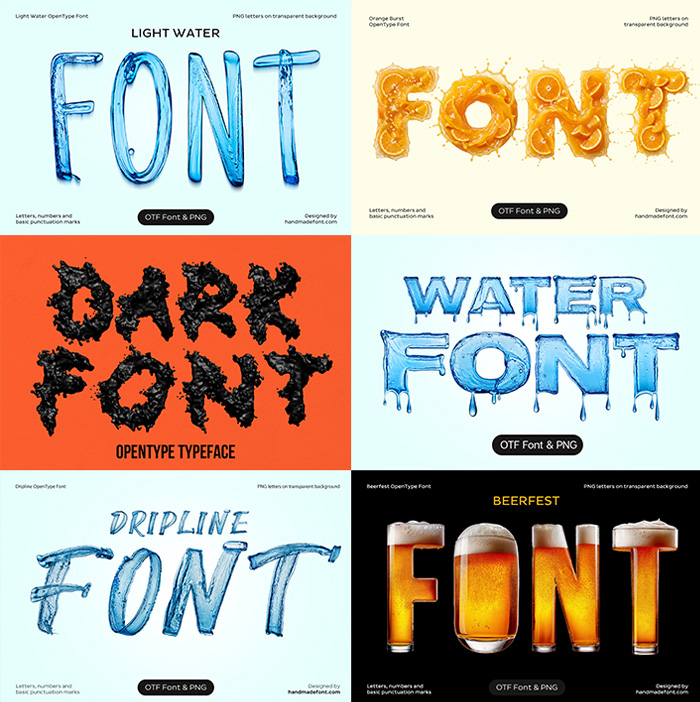
Water & Liquid Fonts – Splash, Drip & Juice Typography
Water and liquid fonts built from the real thing: water poured and splashed, beer and juice caught in the glass, milk, black liquid and ice halfway back to water. Every letter was shot as an actual liquid rather than filtered into one, so the gloss, the bubbles and the drips behave the way liquid behaves. Each font comes as an OpenType file plus transparent PNG letters.
Water fonts are letters that never stopped moving. Each one was poured, splashed, dripped or frozen in front of a camera, so the highlights, the bubbles and the stray drops sit exactly where physics put them rather than where a filter guessed. Because of that, they hold up at size: on a bottle label, a pool sign or a festival banner the letters still read as genuinely wet. The whole set is below, and every card opens onto its own character map, mockups and download.
Every Letter Here Was Caught Still Moving
Pale blue cover artwork spelling FONT in water strokes of the Light Water Font.
Light Water Font
Thin, hand-drawn strokes of pale blue water, still wet at the edges.
Title card for the Dripline Font with the word font brushed in clear water
Dripline Font
A loose brush script loaded with water instead of ink, translucent all the way through.
Pale title card set in the heavy dripping Bold Water Font
Bold Water Font
Heavy bright blue capitals with drips already leaving the baseline.
Black cover artwork spelling FONT in beer-filled glasses of the Beerfest Font.
Beerfest Font
Glasses of amber lager, white head included, poured into letter shapes.
Dark red poster reading FONT in the Ice Water Melt Font with small label text above and below
Ice Water Melt Font
Clear ice caught halfway back to water, every corner rounded off by the thaw.
Orange Juice Font cover showing juicy glass letters and included OTF PNG files
Orange Juice Font
Glossy citrus letters that look filled rather than coloured.
Cover of the Icicle Font. Ice OpenType Typeface Made By Handmade Font
Icicle Font
Frozen grey capitals with spikes hanging from every horizontal.
Orange Burst Font product title card spelling FONT
Orange Burst Font
Fruit slices and flying juice, stopped at the moment of the squeeze.
Orange poster reading DARK FONT in the Dark Font with a small opentype label beneath
Dark Font
Black liquid thrown at the page and caught before it could settle.
Blue-grey title card set in the creamy Milk Skimmed Font
Milk Skimmed Font
Cream-white letters carrying the soft gloss of poured milk.
Water Fonts Sell Anything You Can Pour
Drinks come first, naturally: bottled water, juice, beer, dairy and everything else that arrives cold. Besides that, water fonts turn up on spa and pool branding, swimwear labels, summer festival posters and clean-water campaigns. Since the letters already contain the product, the packaging can skip the photograph altogether. Meanwhile the frozen ones earn their keep in winter, on ski resorts, cold-brew launches and anything sold at freezer temperature.